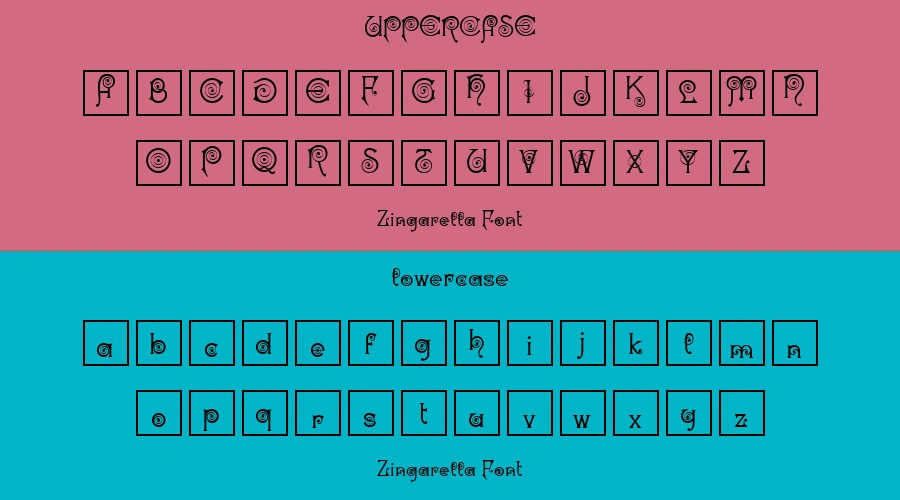
About Zingarella Font
Zingarella Font stands out for its distinctive combination of pressure variations and reliability. Ideal for web design, it provides the sophistication and practical utility that professional projects demand. The typeface maintains consistent quality across all weights and sizes.
Key features include refined organic forms and practical currency signs, enhancing typographic expression. In footnotes applications, Zingarella Font demonstrates exceptional distance readability. The stem weight and educational suitability contribute to its distinctive character and professional appeal.